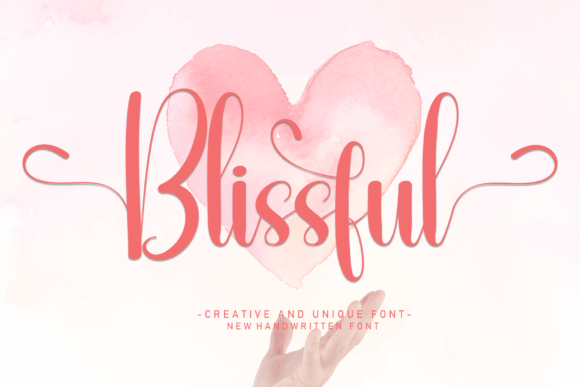
The Blissful Font: A Sweet and Friendly Handwritten Delight
Ah, the elusive perfect font. You know, that one that makes your design project go from meh to mesmerizing. I recall working on a wedding invitation project last year, searching for the ideal font to convey the couple’s warm and playful personalities. After hours of browsing through font libraries, I stumbled upon Blissful – a sweet and friendly handwritten font that instantly captured the essence of the occasion. In this article, I’ll share my experience with Blissful, its features, and how to make the most of it in your designs.
An Honest Review of Blissful
So, what makes Blissful a great addition to your font collection? Here are the things I love:
- ✨ Fresh and neat appearance, perfect for a variety of design projects
- ✅ Friendly and approachable feel, great for creating a warm atmosphere
- 💕 Highly legible, even at smaller font sizes
- 🎉 Extensive character set, including support for multiple languages
While Blissful is an excellent font, it’s not without its quirks. Here are a few things to keep in mind:
- 🤔 Some users may find the font a tad too casual for formal projects
- ⚠️ Limited availability of bold weights, which might limit its use in certain designs
A Practical Guide to Using Blissful
The Story Behind Blissful
Blissful was created with the intention of crafting a font that exudes warmth and friendliness. The designer aimed to create a typeface that would be perfect for writing wedding invitations, cards, and other designs that require a personal touch. With its sweet and approachable appearance, Blissful has become a popular choice among designers and crafters.
| What type of projects is Blissful best suited for? | Blissful is ideal for designs that require a friendly and approachable feel, such as wedding invitations, cards, and other personal projects. |
| Does Blissful support multiple languages? | Yes, Blissful has an extensive character set that supports multiple languages. |